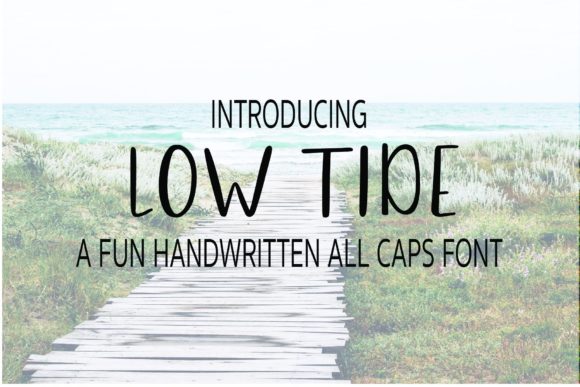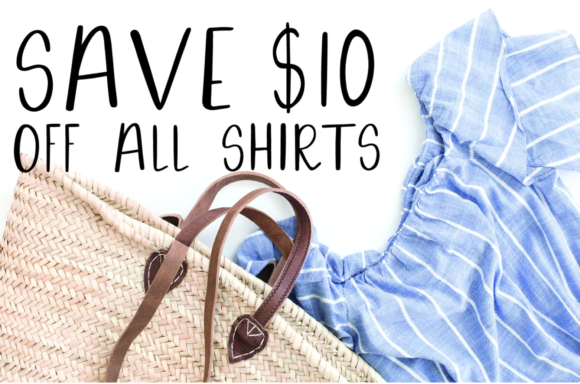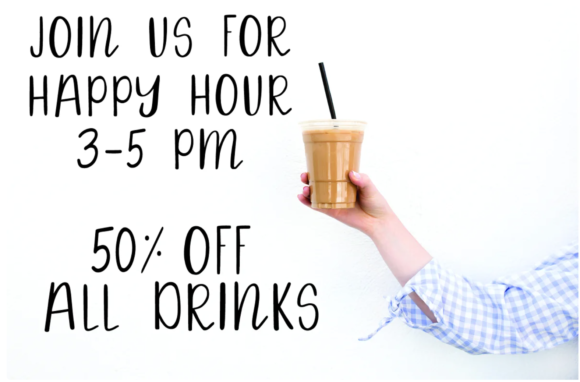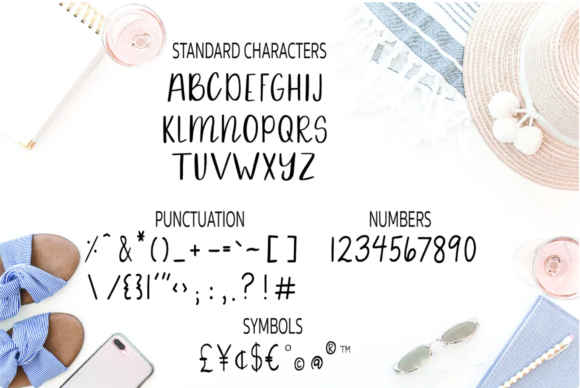
Low Tide Font
About Low Tide Font
Low Tide is a simple and casual handwritten font that can be used for all chalkboard quotes or teaching material! Its authentic look will add a personal and realistic feel to your designs.